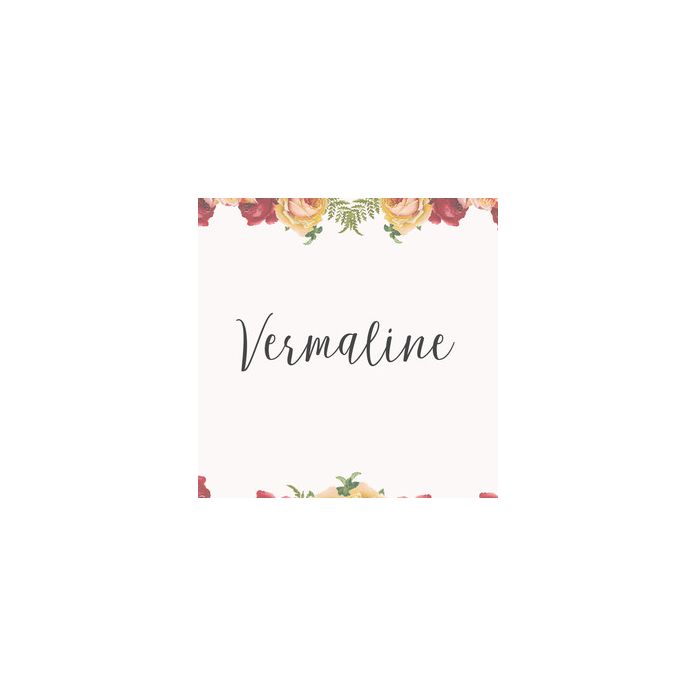
Vermaline is a modern script font, every single letter has been careful to make your text look beautiful. With the modern style script font would be perfect for many different projects ex: quote, header blogs, posters, wedding, branding, logos, fashion, clothing, letters, invitations, stationery, etc.